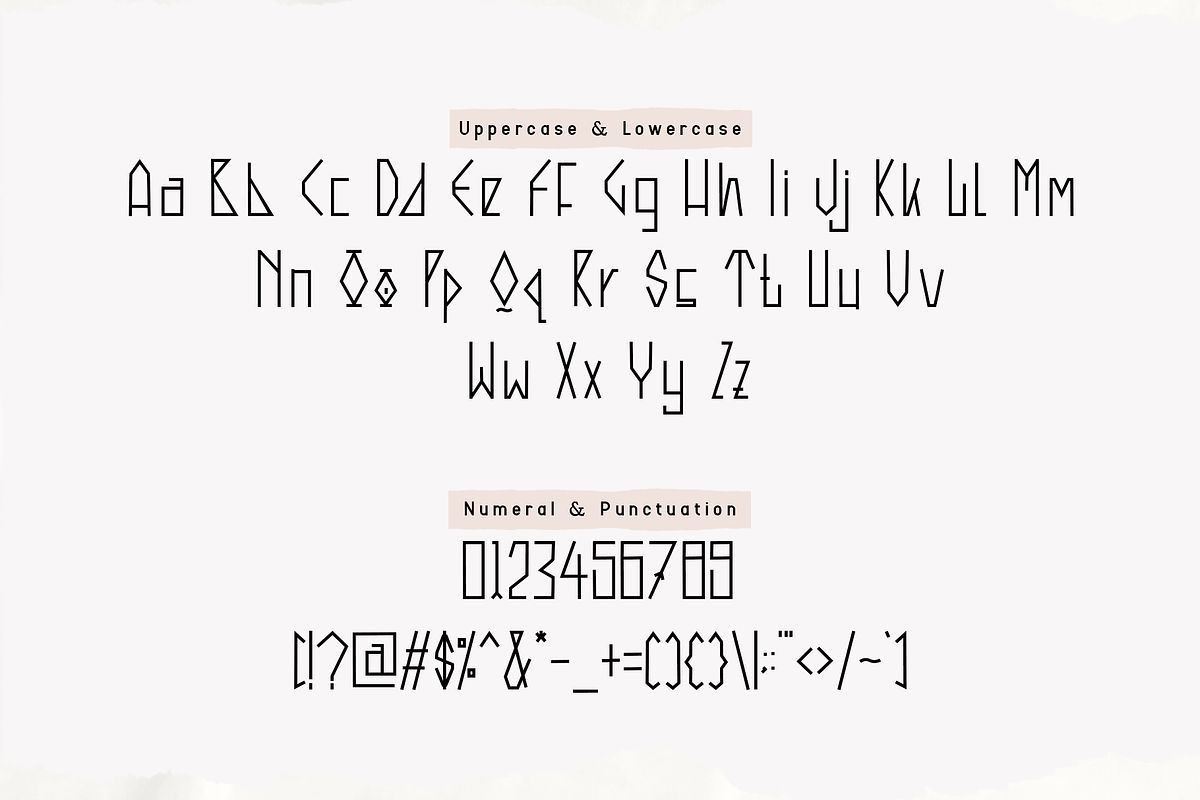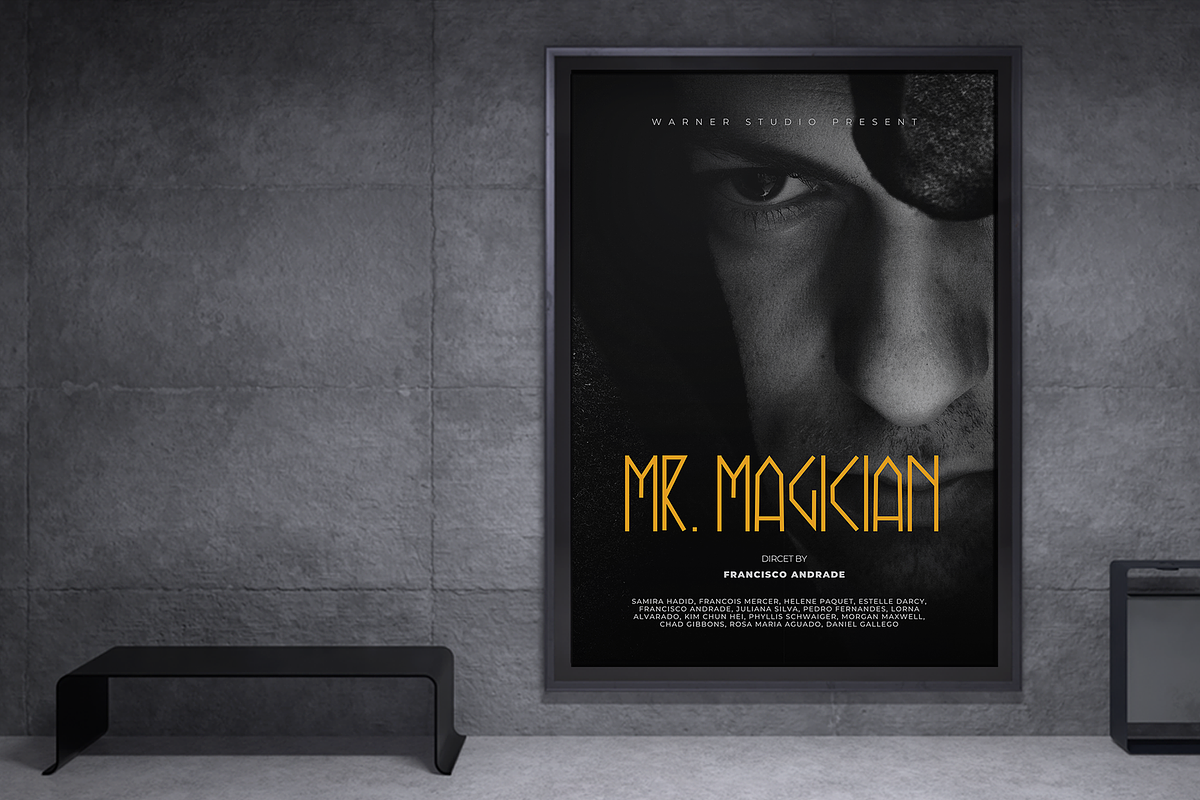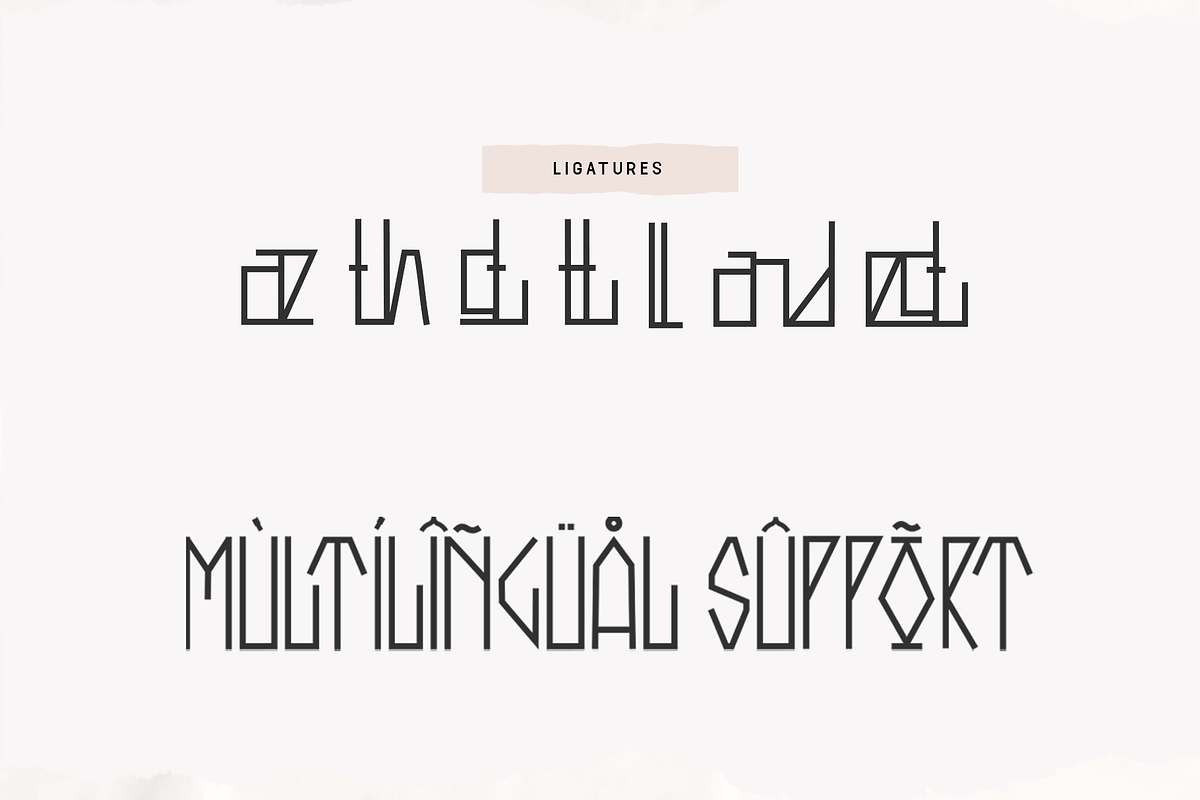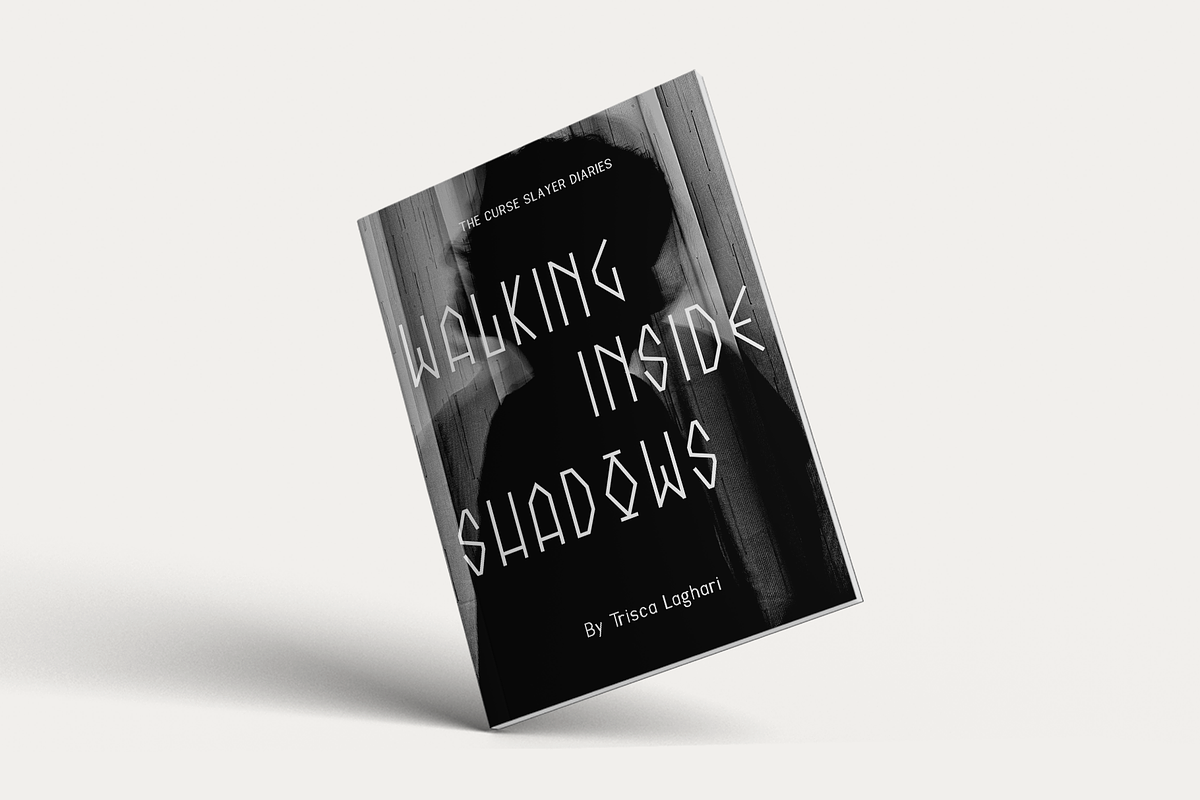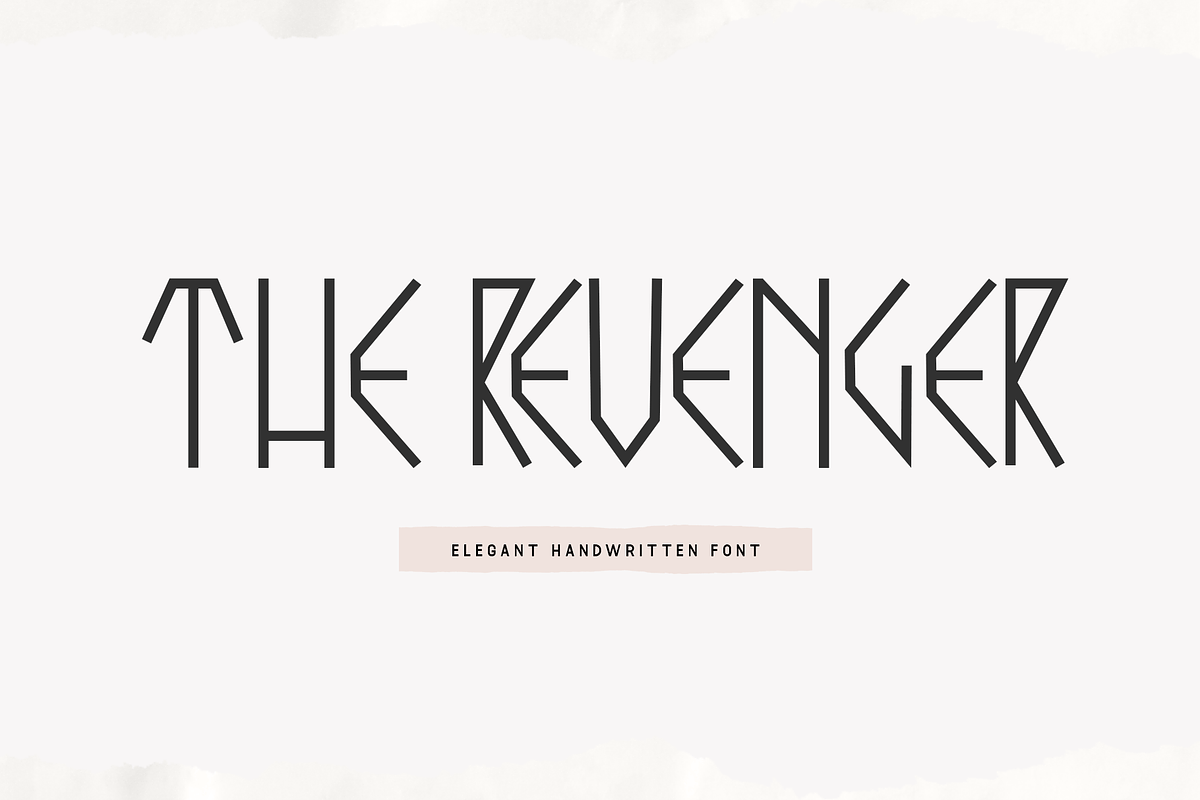
The Revenger - Elegant Handwritten
The Revenger - An Elegant Handwritten Font
The Revenger is an elegant and expressive handwritten font designed to add a touch of sophistication and drama to your design projects. With its flowing curves and refined strokes, The Revenger is perfect for luxury branding, stylish invitations, dramatic quotes, and high-end packaging. This font captures the essence of elegance with an edge, ensuring your work stands out with a bold and distinctive flair.
Crafted with an artistic approach, The Revenger features smooth and intricate letterforms that offer excellent readability and visual impact. Its elegant handwritten style makes it ideal for both display and text purposes, providing a rich and captivating presence. The font’s versatility allows it to adapt seamlessly to various design contexts, from digital media to printed materials, making it a valuable asset for any designer aiming to create sophisticated and striking visuals.
Elevate your design projects with The Revenger, a font that embodies the fusion of elegance and intensity. Its unique style and adaptability make it an essential addition to any designer’s toolkit for crafting powerful and captivating designs. Enhance your work with The Revenger and experience the allure of elegant handwritten typography.